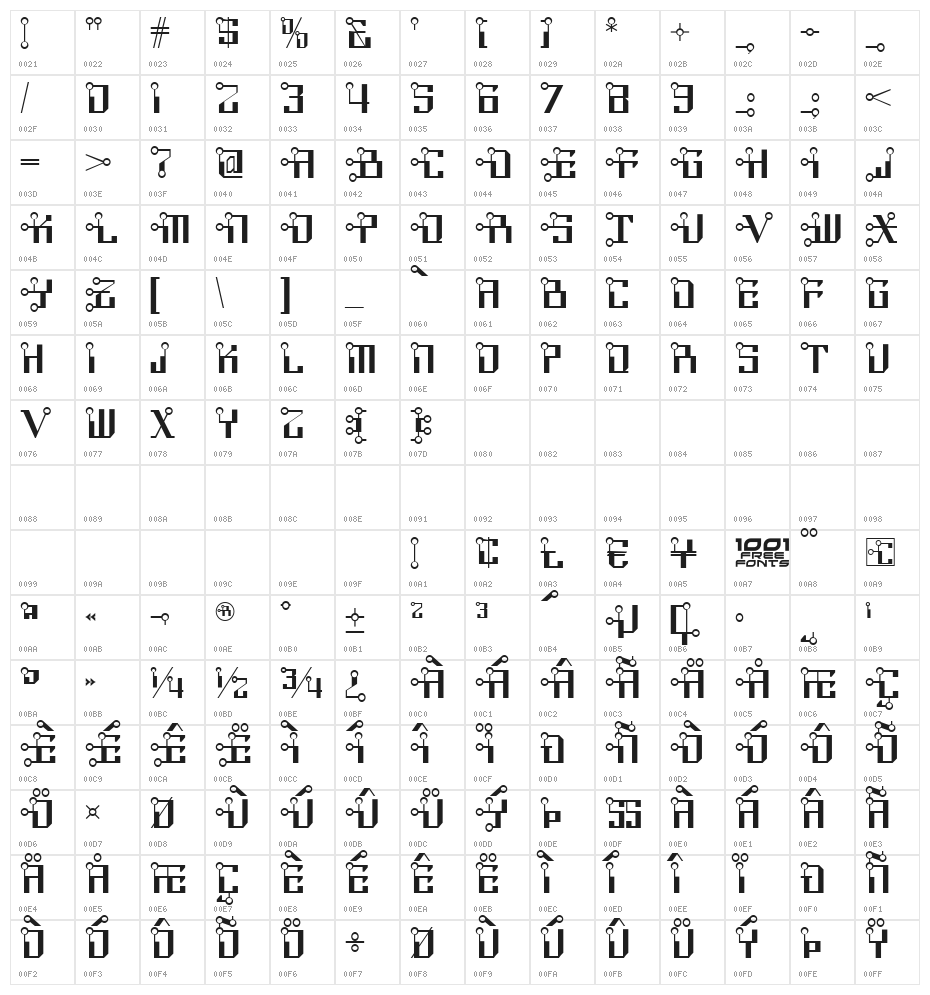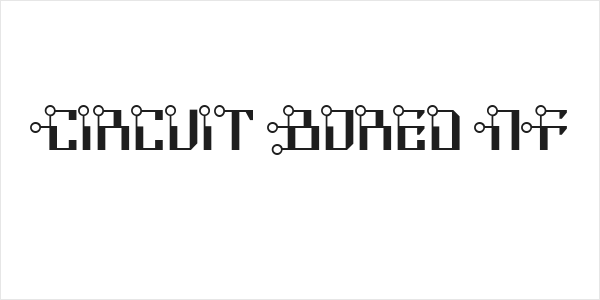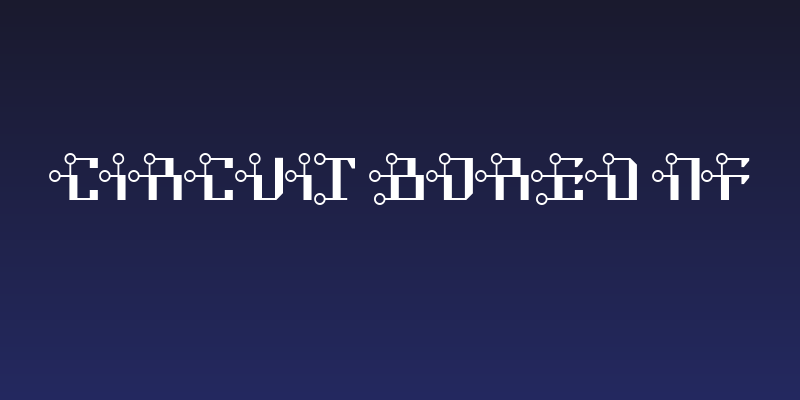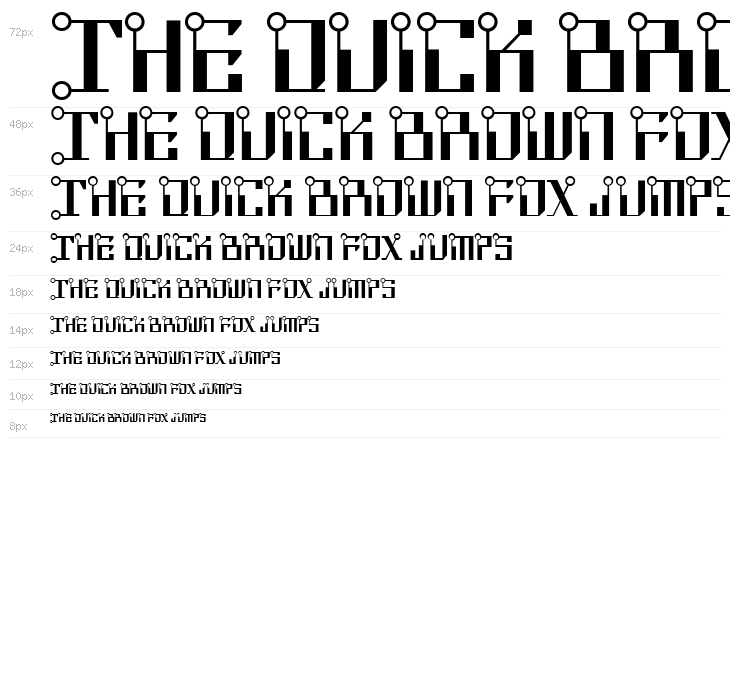
Circuit Bored NF Font
Circuit Bored NF Description
This font features a unique and modern design inspired by electronic circuits. Each character is constructed with a combination of straight lines and circular nodes, resembling a circuit board layout. The uppercase and lowercase letters maintain a consistent style, with geometric shapes and a futuristic aesthetic. The numbers and special characters follow the same design principles, making the font cohesive and visually striking. The overall appearance is both technical and artistic, suitable for projects that require a digital or high-tech feel.
Proposed ProjectsIdeal for technology branding, digital art projects, sci-fi themed designs, and innovative product packaging.